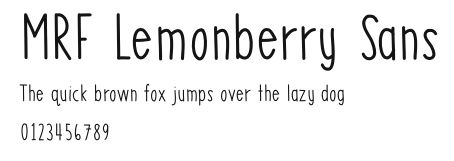
• Font Name: MRF Lemonberry Sans
• Designer: Sabrina Schleiger
About MRF Lemonberry Sans.otf
MRF Lemonberry Sans.otf is a modern, elegant sans-serif font designed for ultimate readability and visual harmony. Perfect for branding, headlines, web design, and print materials.